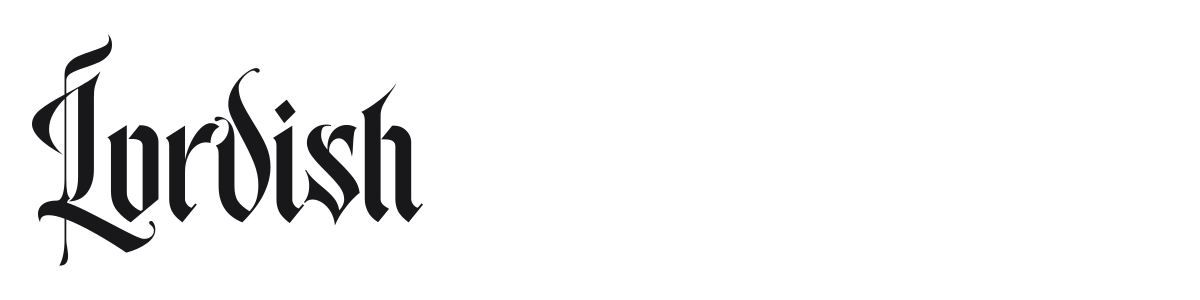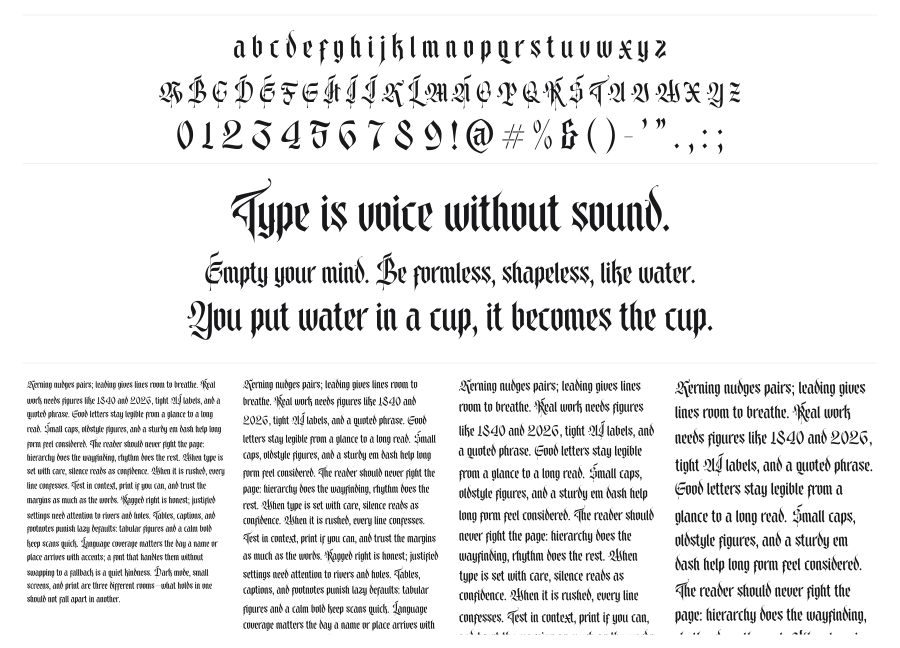
Lordish
Lordish is a heavy textura blackletter with sharp pointed terminals and deep high-contrast strokes drawn in the classic Gothic tradition. The compressed proportions and angular diamond-tipped details create a dense, powerful texture that commands attention at large sizes. It draws equally from medieval manuscripts and contemporary dark-culture aesthetics.